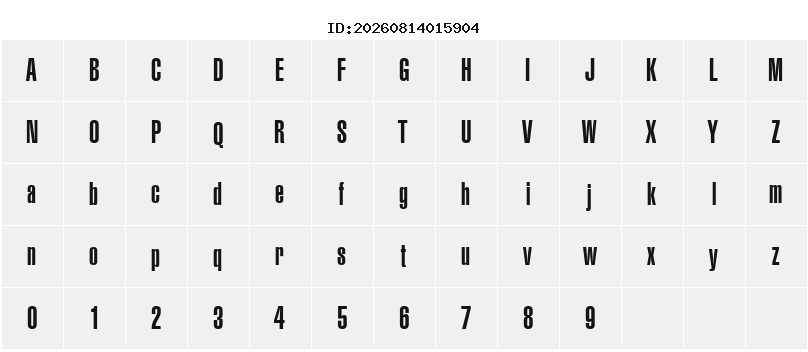
• Font Name: Swiss911 UCm BT
• Font ID: Swiss 911 Ultra Compressed
• Full Font Name: Swiss 911 Ultra Compressed BT
About Swiss911 UCm BT.ttf
Swiss911 UCm BT.ttf is a modern, elegant sans-serif font designed for ultimate readability and visual harmony. Perfect for branding, headlines, web design, and print materials.